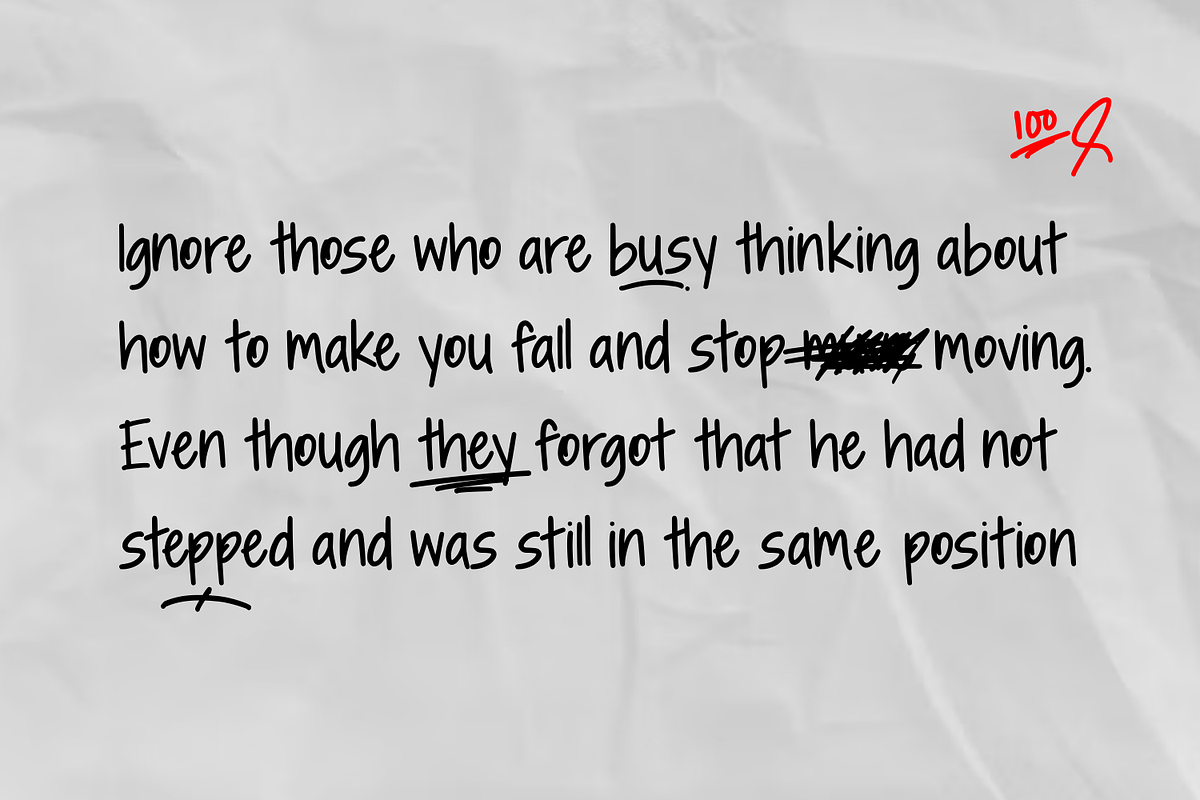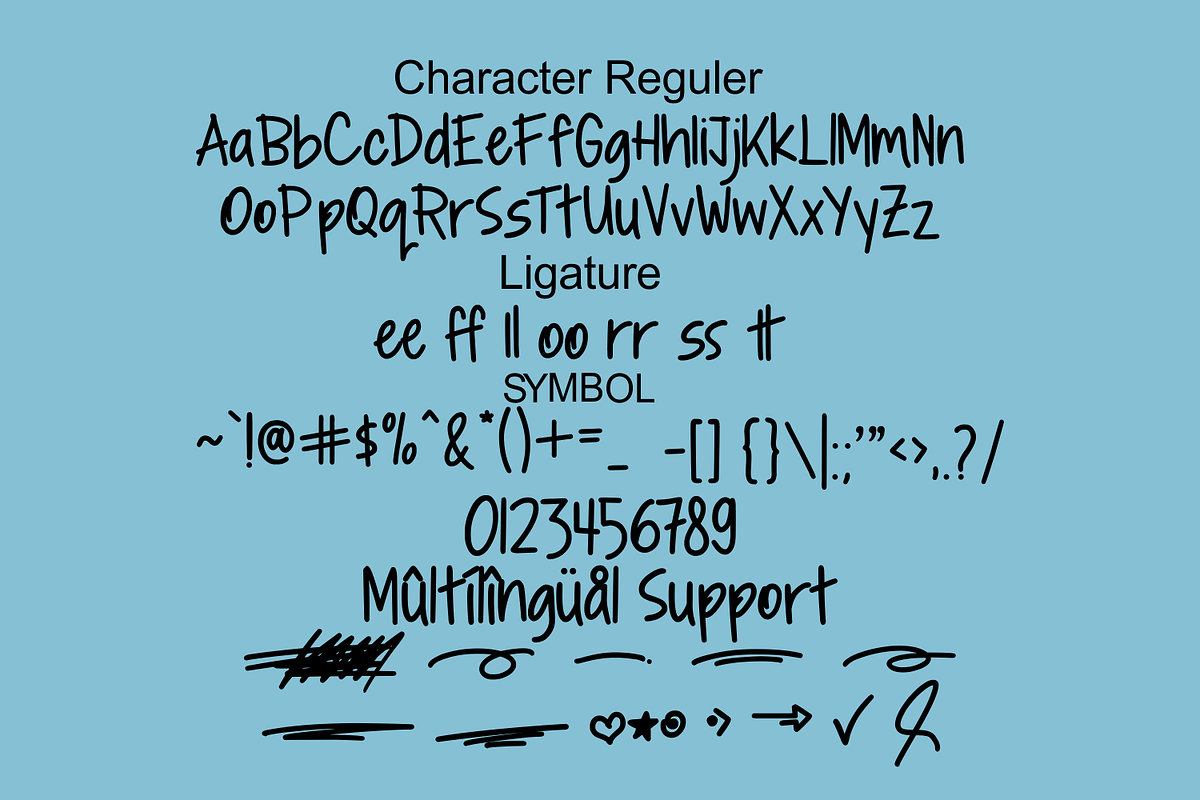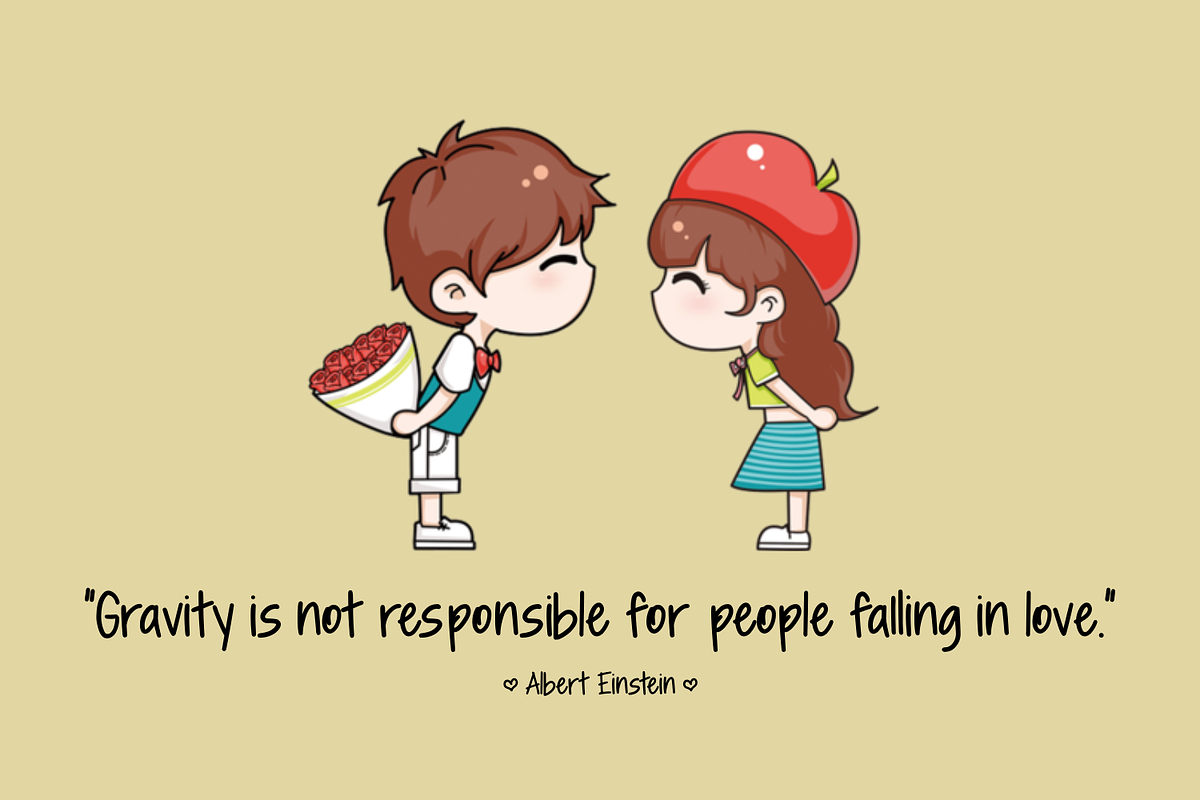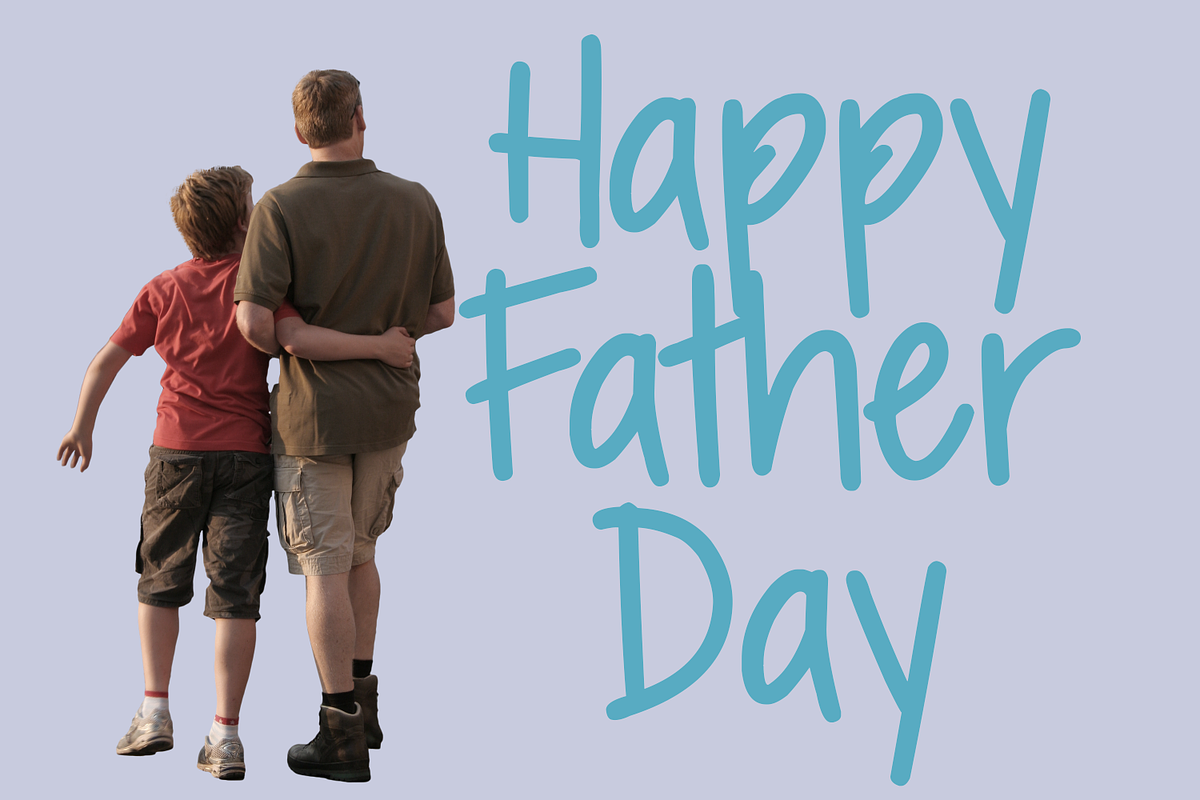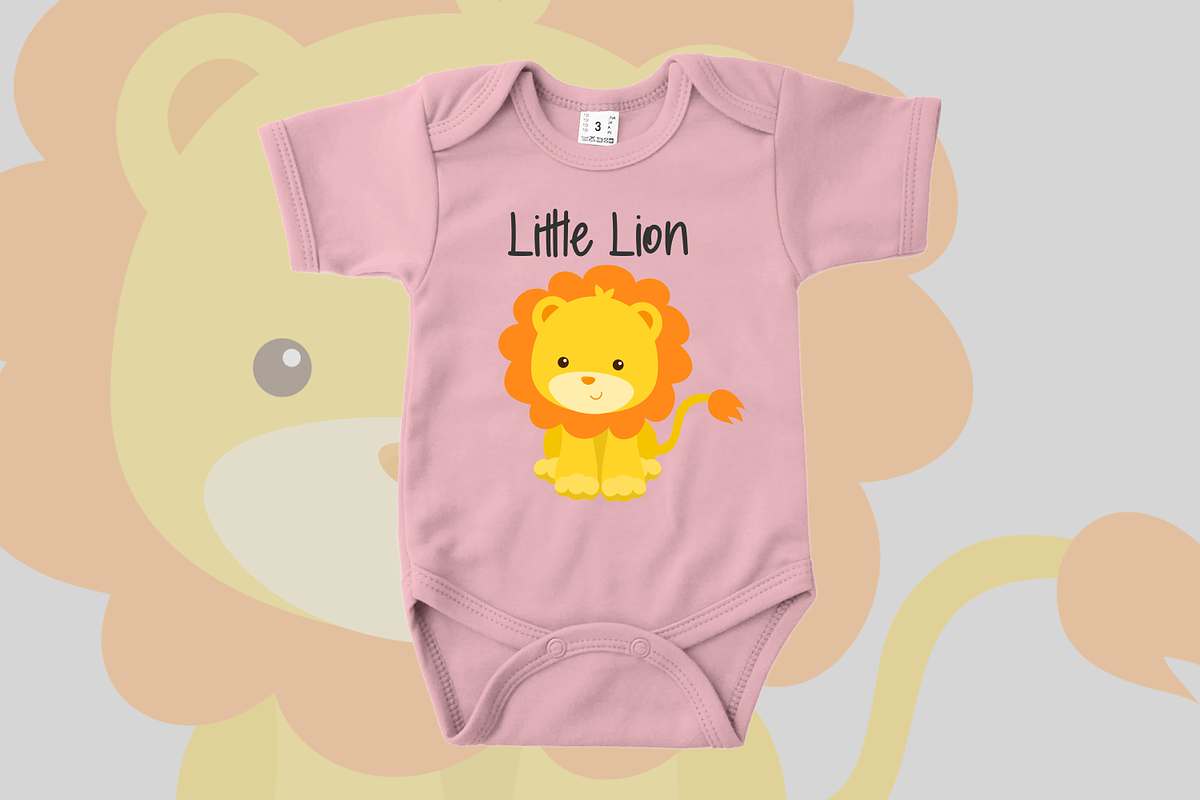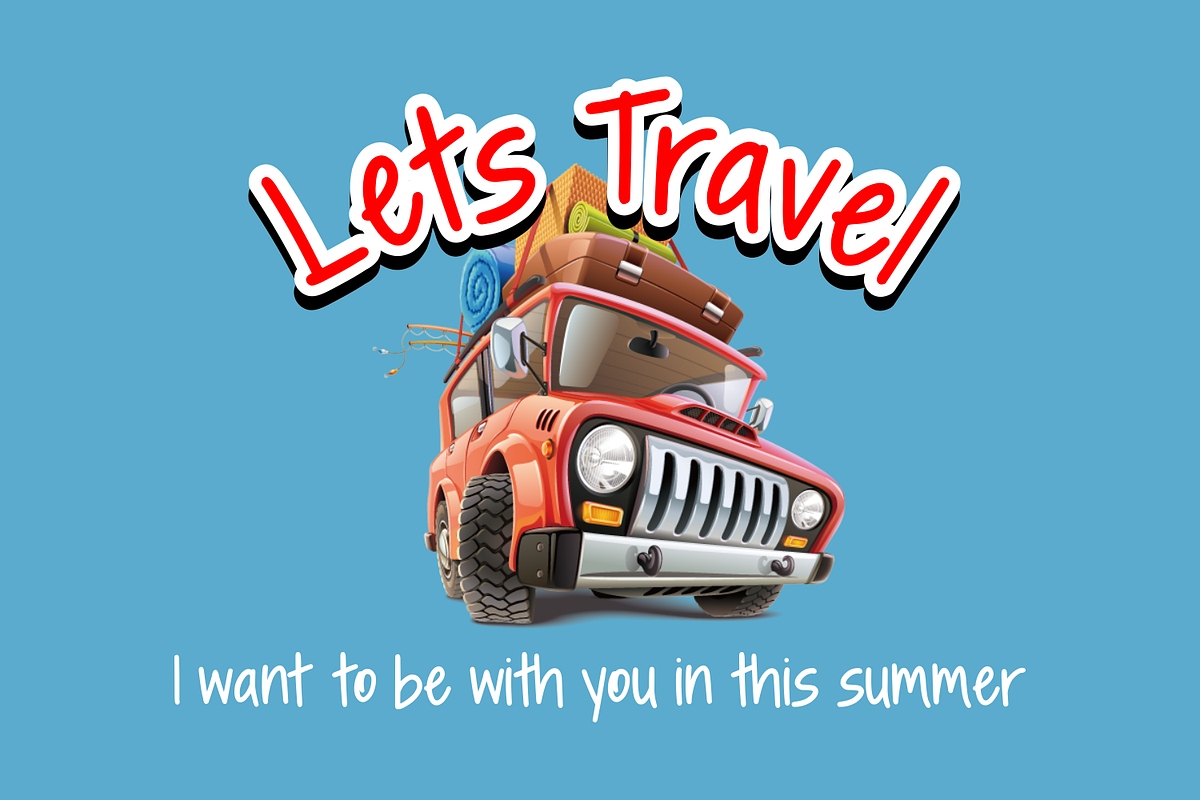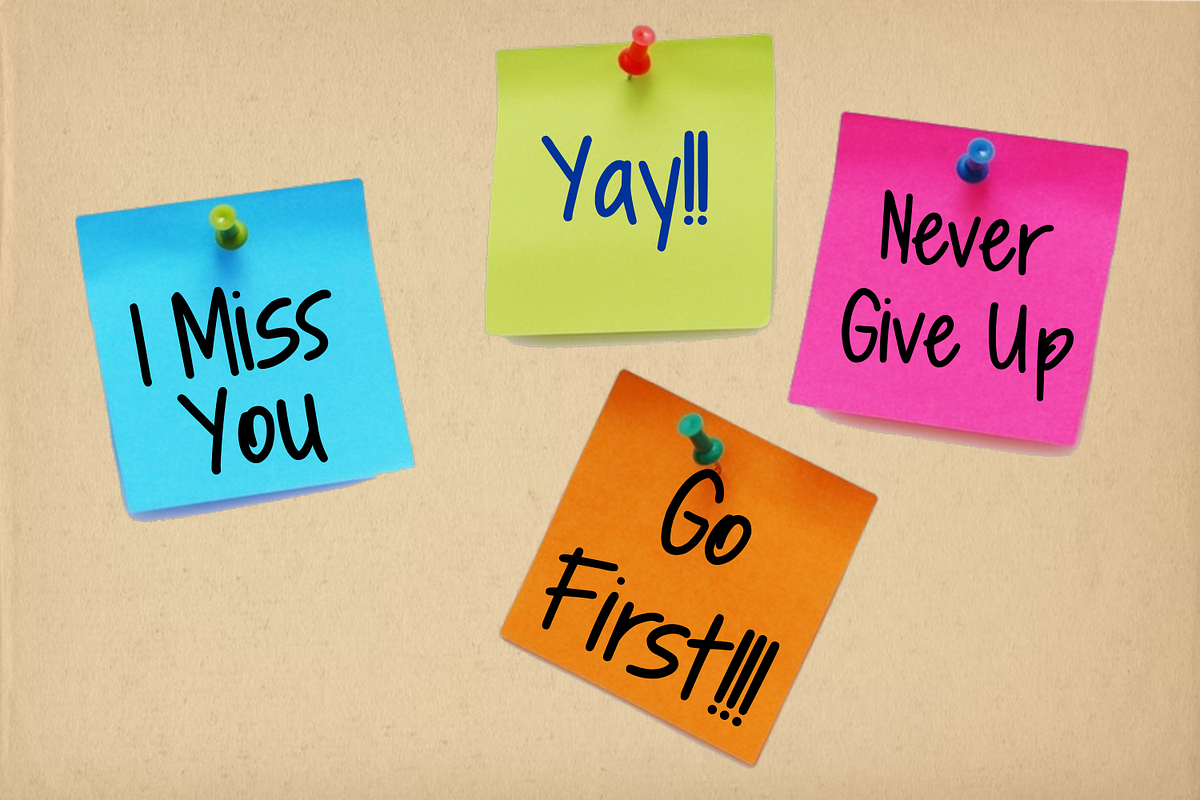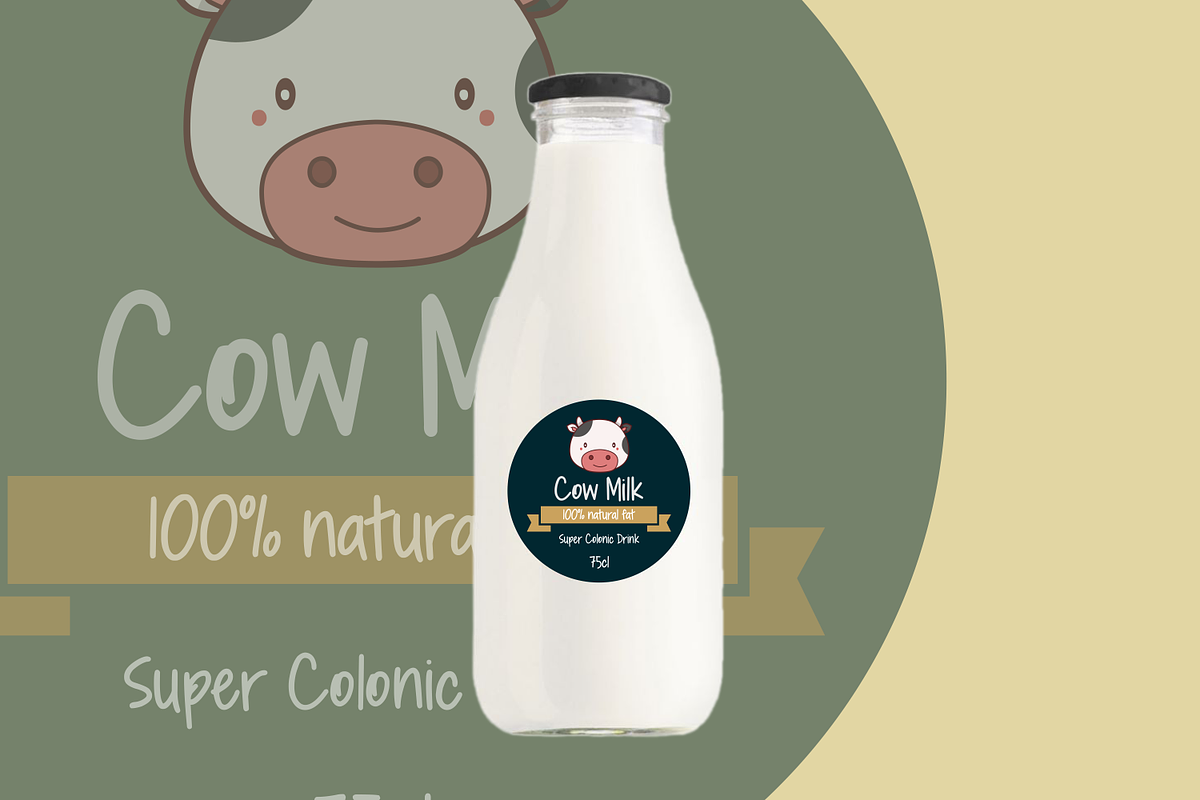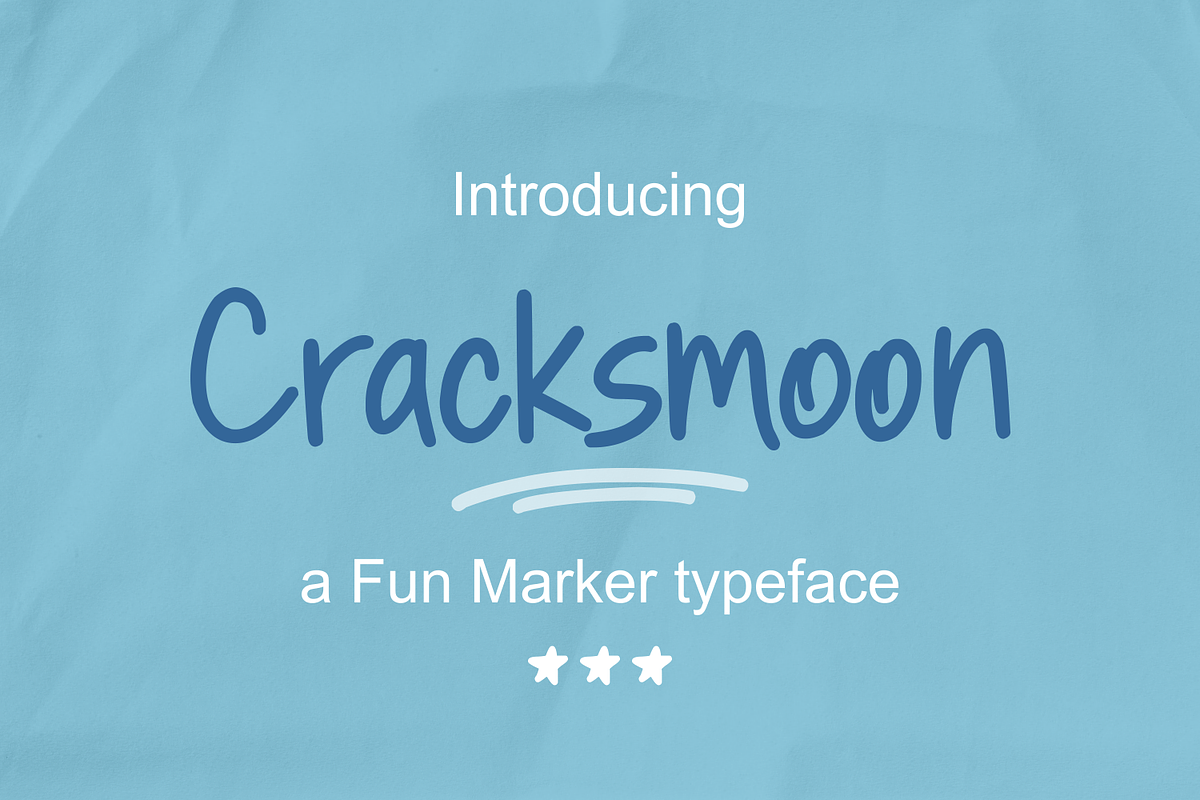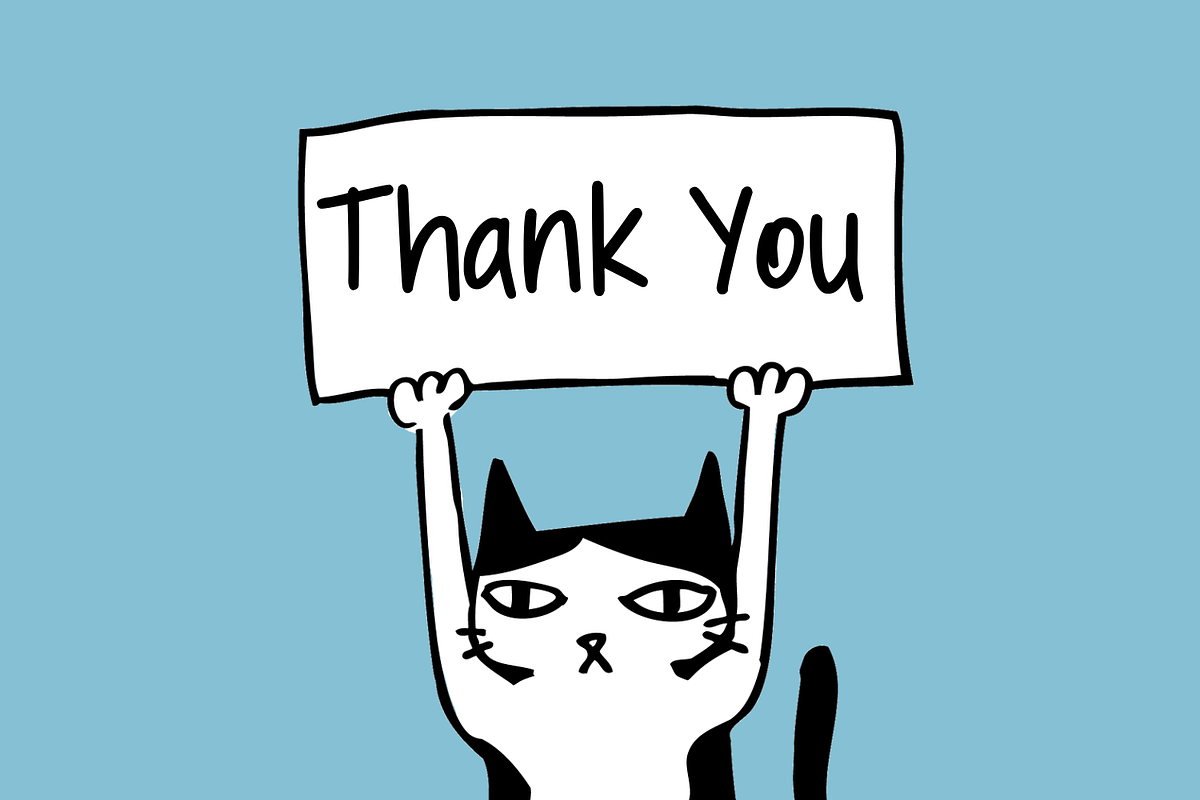
Cracksmoon was hand-drawn with a marker pen and converted to font - and like the marker, it has natural edges and realistic shapes. Includes bonus ligatures and style swashes. Perfect for designs where you need a font that's a little rougher around the edges. Including : Cracksmoon OTF Cracksmoon TTF Cracksmoon WOFF Alternate Multilingual support